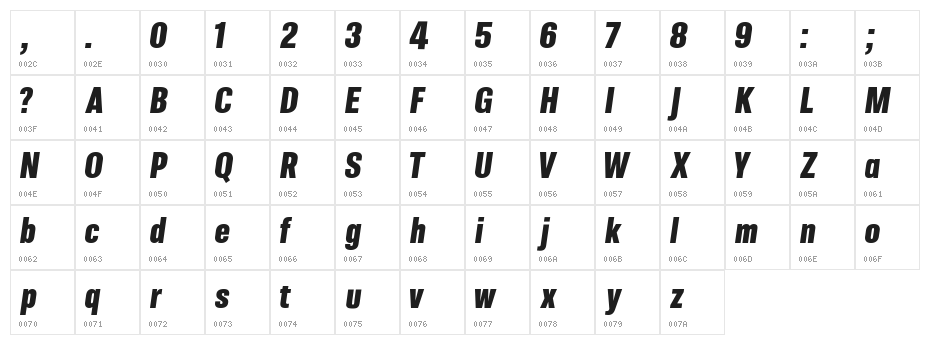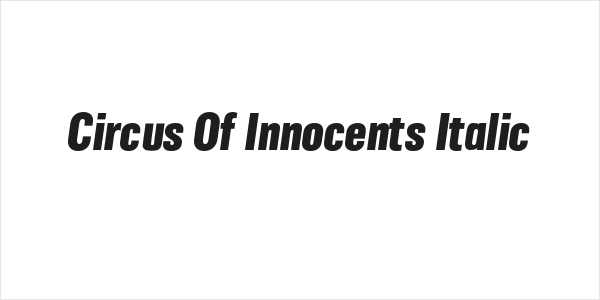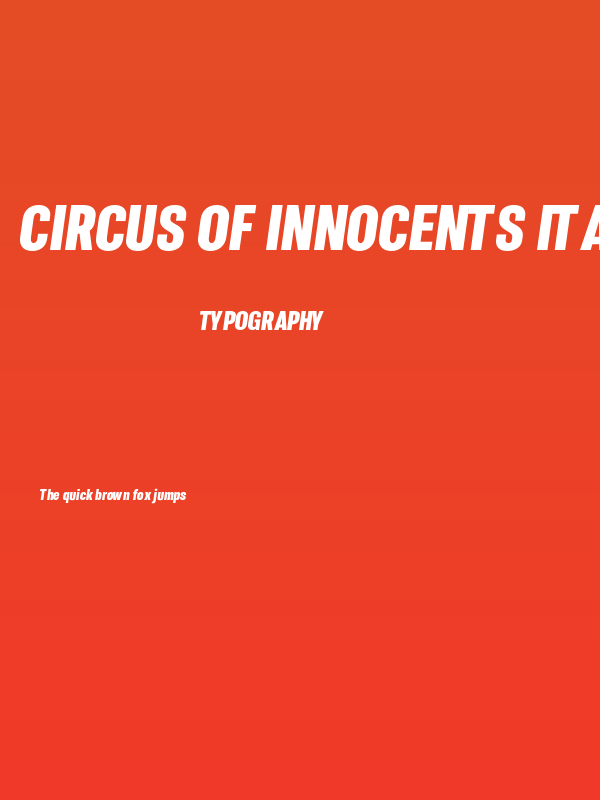
Circus Of Innocents Italic Font
Circus Of Innocents Italic Description
This font features a bold and dynamic style with a strong italic slant, giving it a sense of movement and energy. The characters are thick and robust, with a slightly condensed width that enhances its impactful appearance. The uppercase letters are particularly striking, with a uniform height that maintains readability. The lowercase letters complement the uppercase with a consistent style, while the numerals are clear and prominent. The font's overall design is modern and assertive, making it suitable for attention-grabbing headlines and titles.
| Proposed Projects | Ideal for use in posters, advertisements, and branding materials where a strong, eye-catching font is needed. |